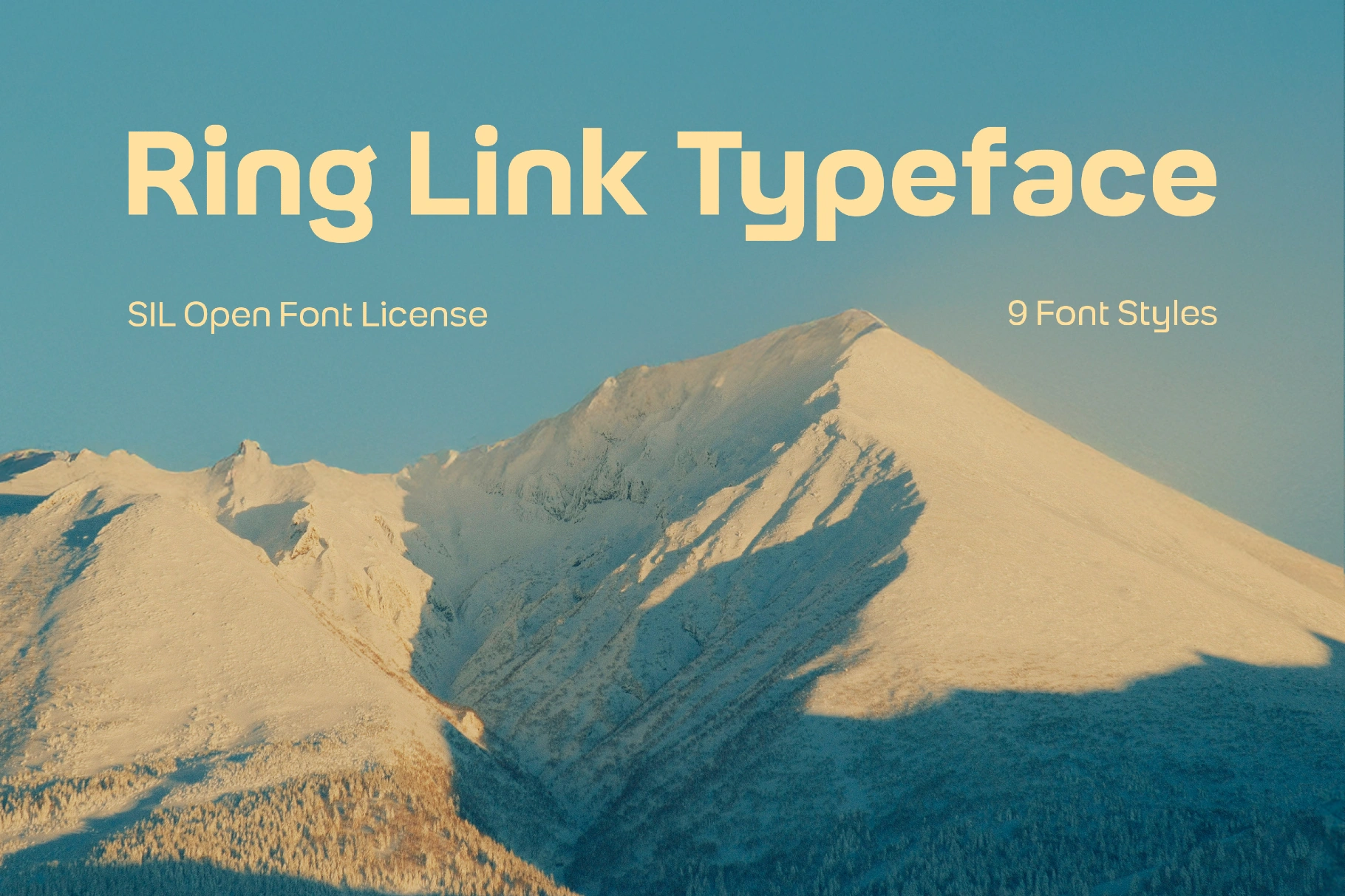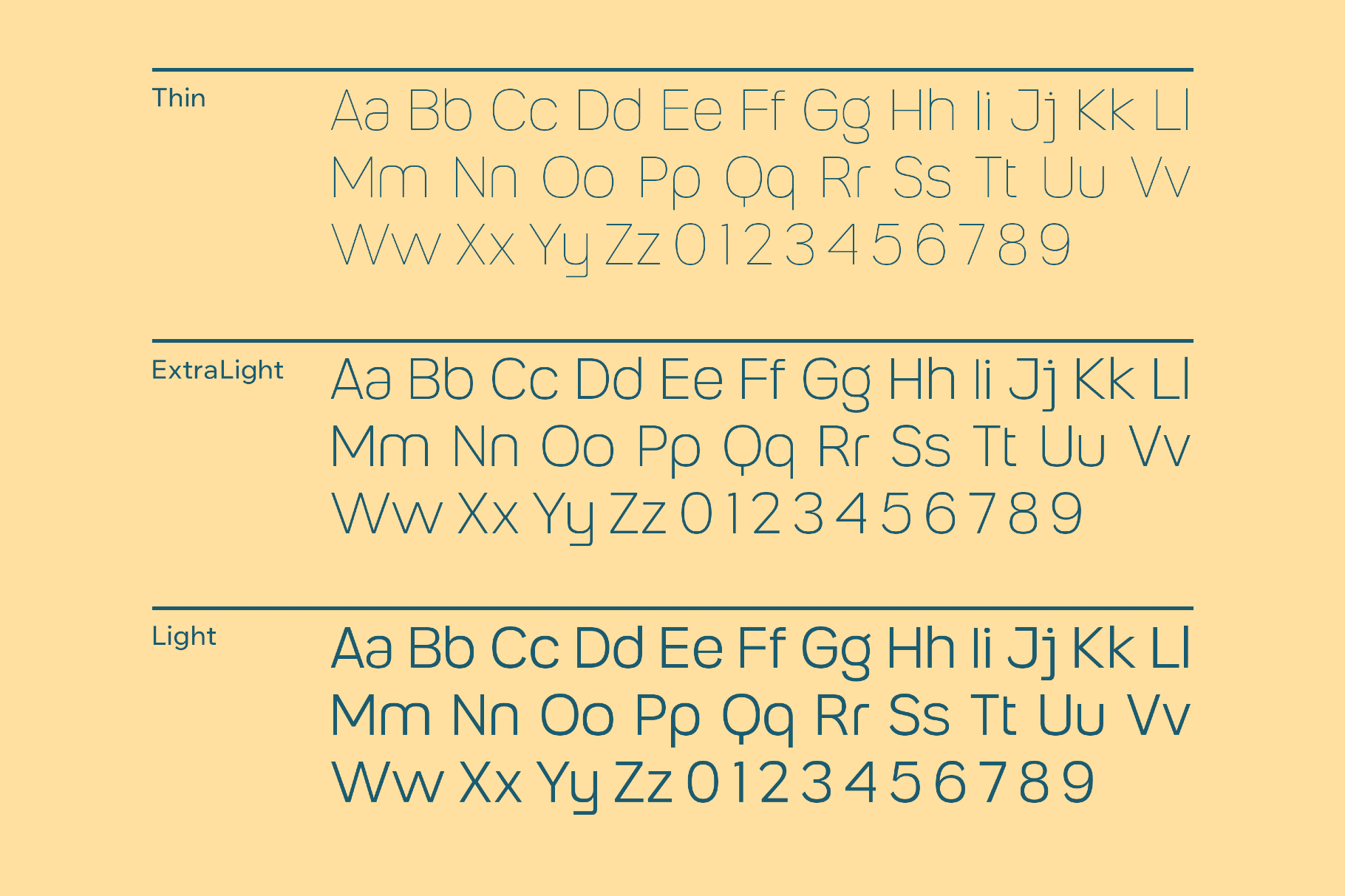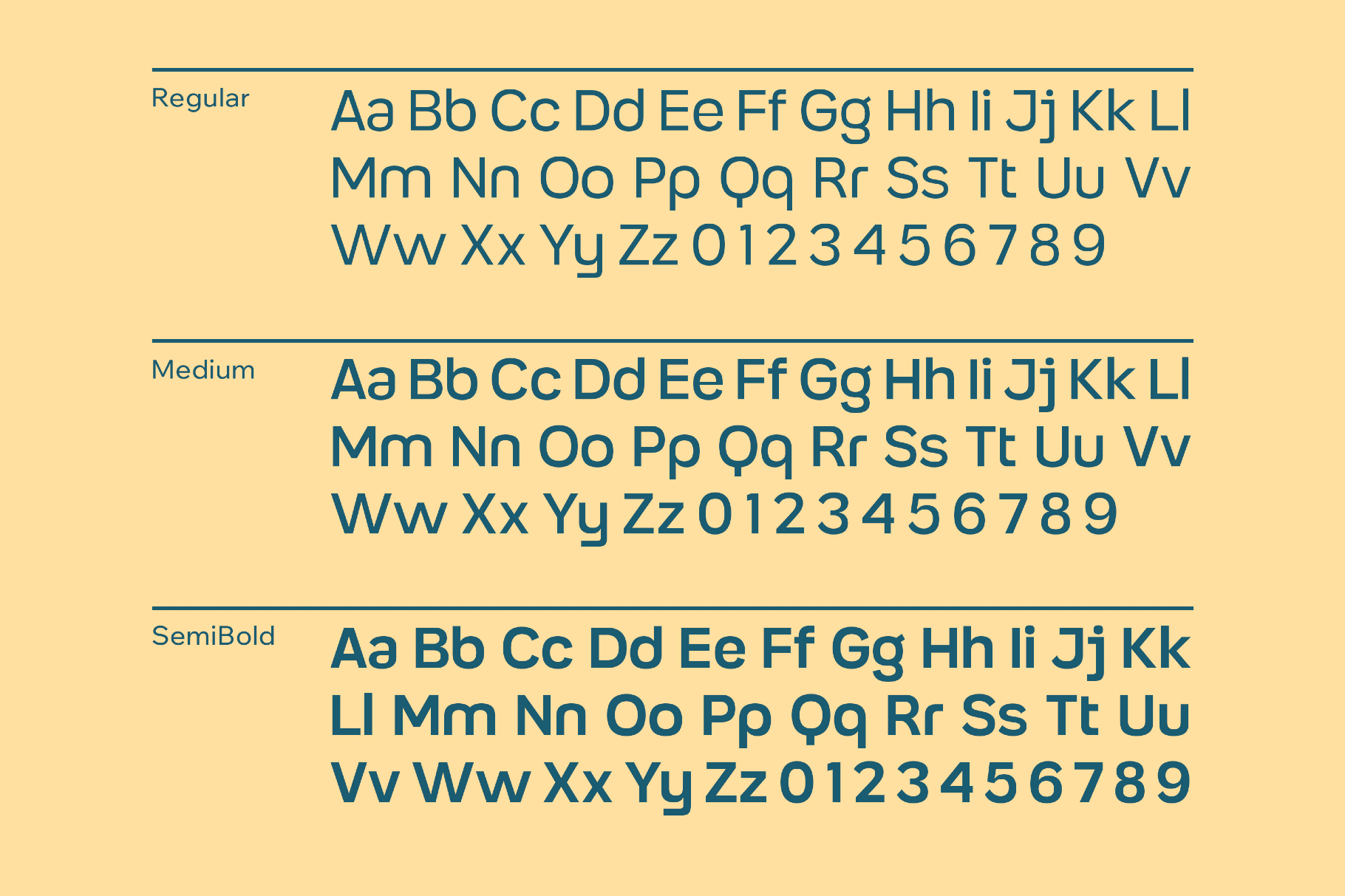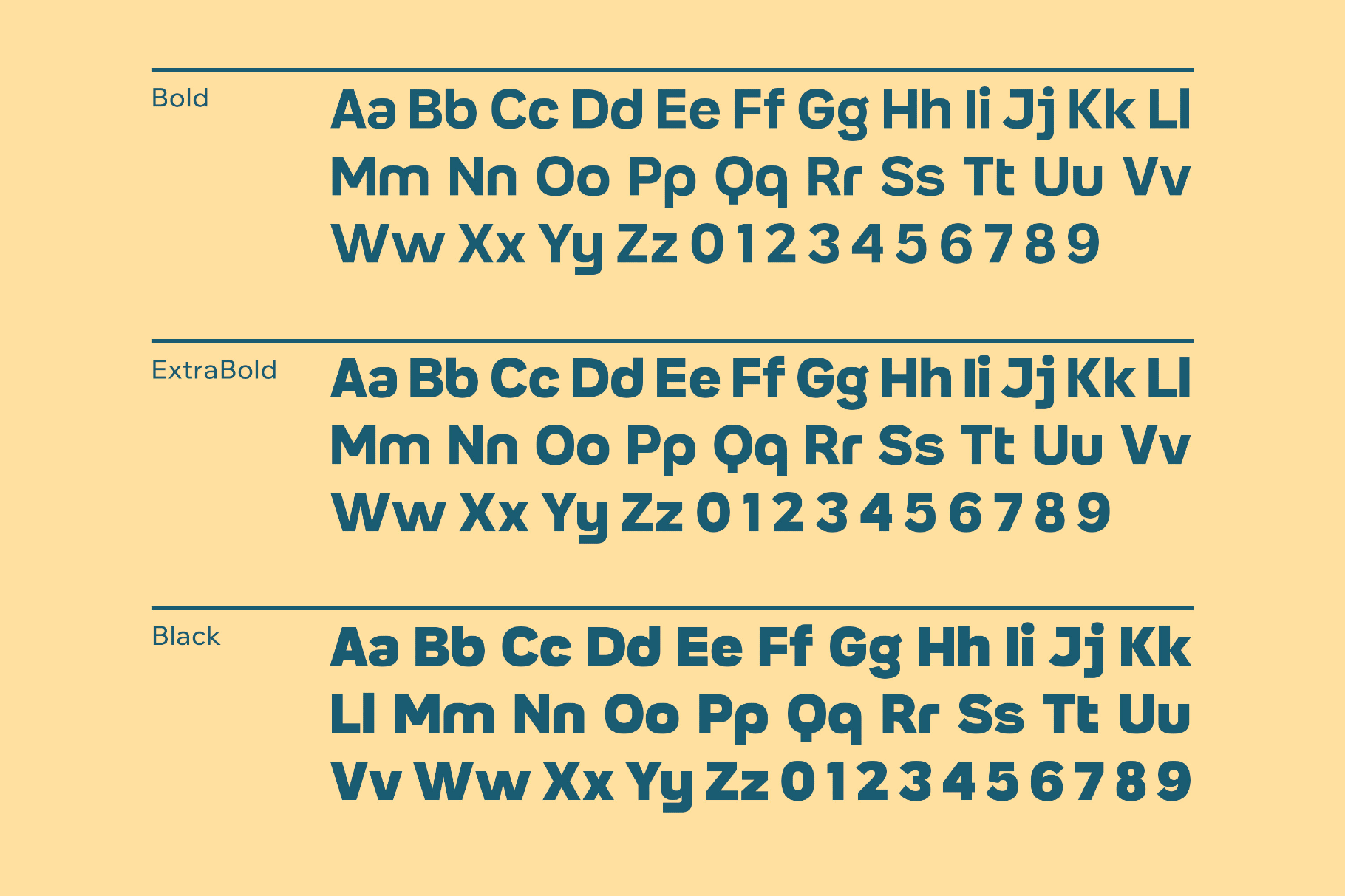
Ring Link Typeface
Ring Link is a versatile, contemporary sans with an engineered geometry and friendly roundness that recalls late-1990s tech branding and the clean discipline of Swiss signage. Linked strokes of five coordinated styles are an excellent fit for UI and app interfaces, brand systems, music and nightlife posters, tech branding, editorial layouts, presentation decks, packaging copy, and wayfinding
- Nine styles.
- Multilingual support across extended Latin and Cyrillic scripts.